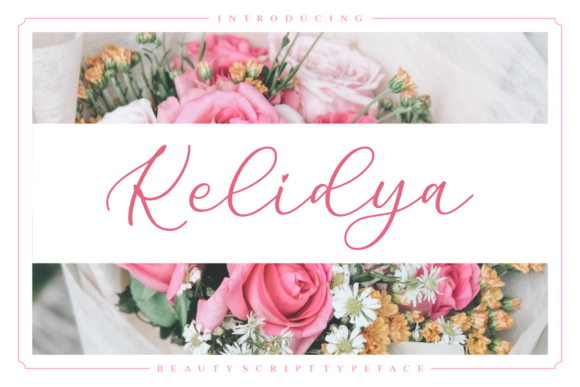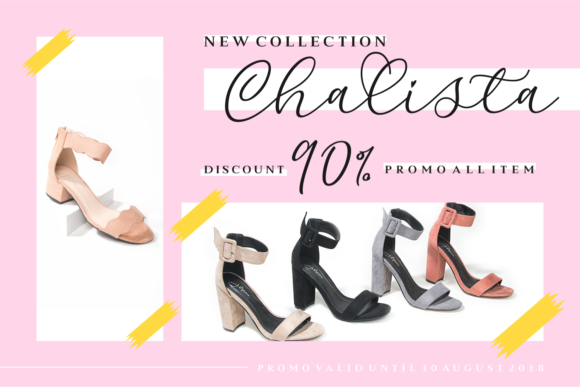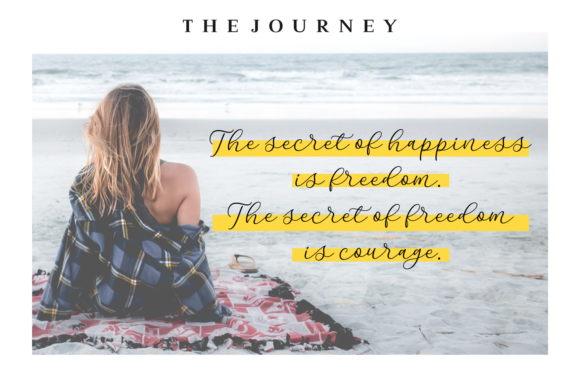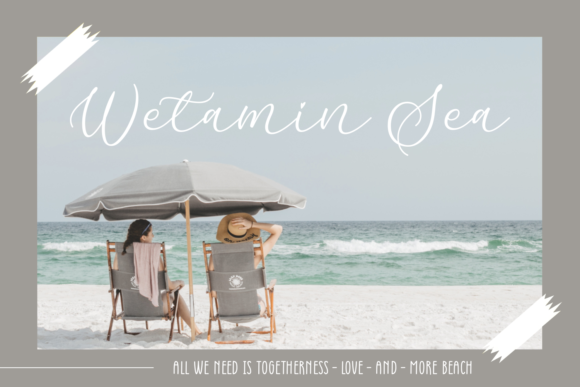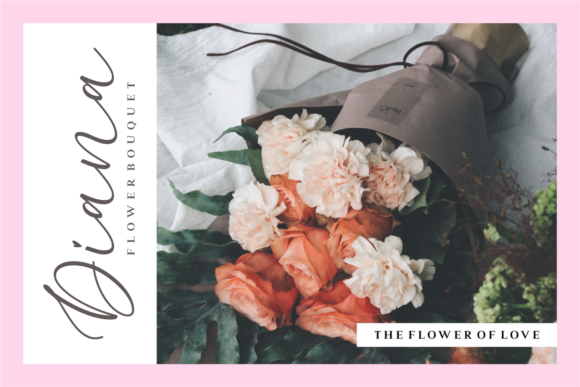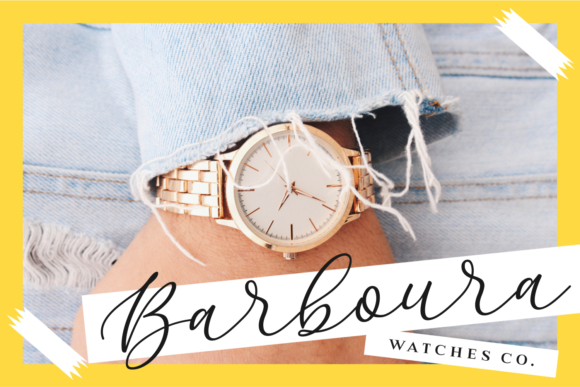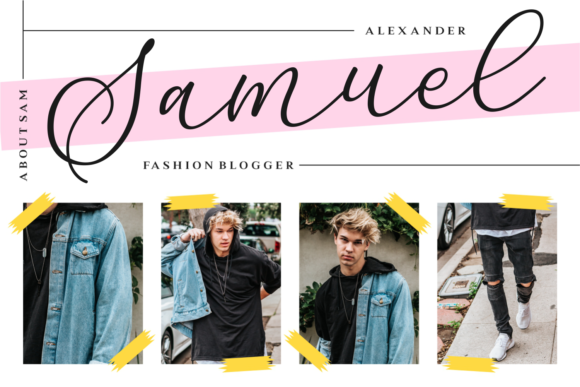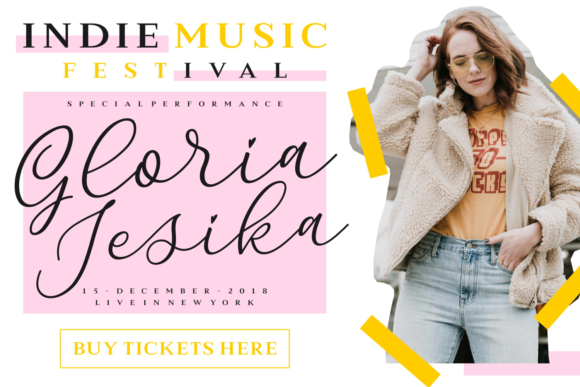
Kelidya Font
About Kelidya Font
Kelidya is a beautiful, neat script typeface. With it’s feminine and elegant letters, Kelidya is perfect for blogs or fashion related designs.